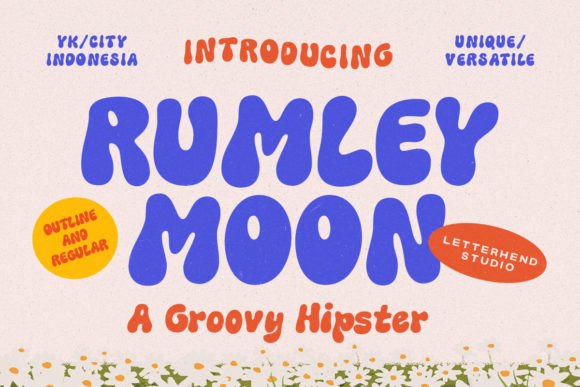
Introducing Rumley Moon Font – the ultimate font style for happy birthday celebrations and beyond! Created by the talented designers at letterhend, this font is here to revolutionize the way you express joy, excitement, and creativity. Get ready to embark on a journey filled with retro vibes and captivating letterforms that will leave everyone in awe.
With its bold and distinctive display font family, Rumley Moon is the perfect choice for adding a touch of funk and groove to any design project you have in mind. Whether you're designing birthday invitations, party flyers, or even social media graphics, this font will effortlessly elevate your creations to new heights.
Imagine the excitement that will fill the air when your loved ones receive an invitation adorned with the playful and unique letterforms of Rumley Moon Font. Instantly, they will be transported back in time to the era of disco balls, bell-bottom jeans, and carefree happiness. This font has the power to evoke nostalgia and create a sense of joy that will make your special occasion truly memorable.
But don't be fooled by its retro charm – Rumley Moon Font is a versatile powerhouse that can be adapted to suit any context. Its eye-catching design makes it ideal for branding projects, logo designs, and even album covers. Let your imagination run wild and watch as this font effortlessly brings your vision to life.